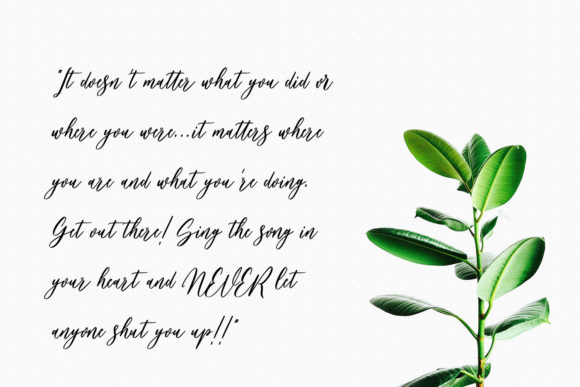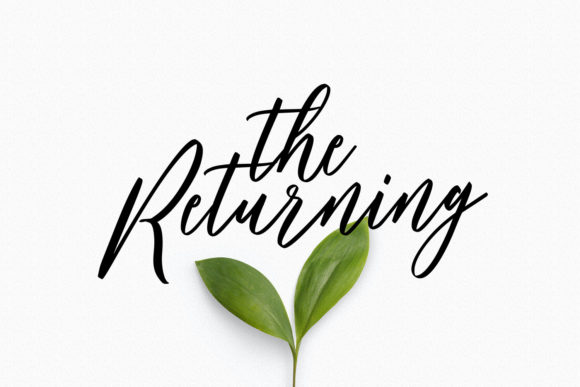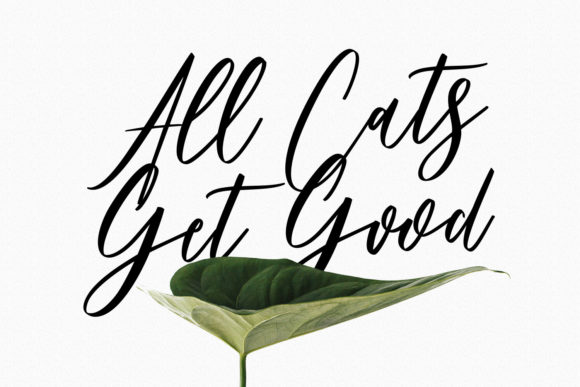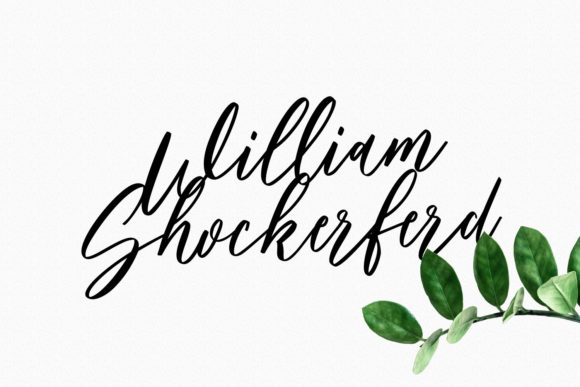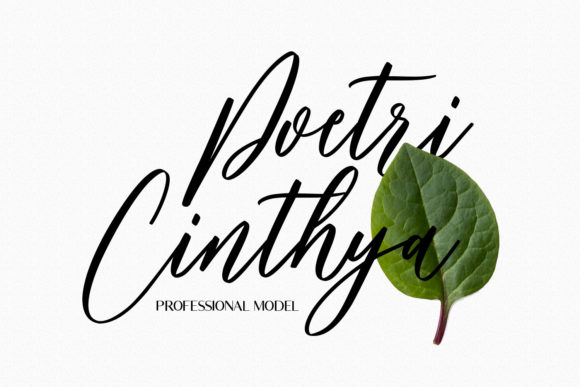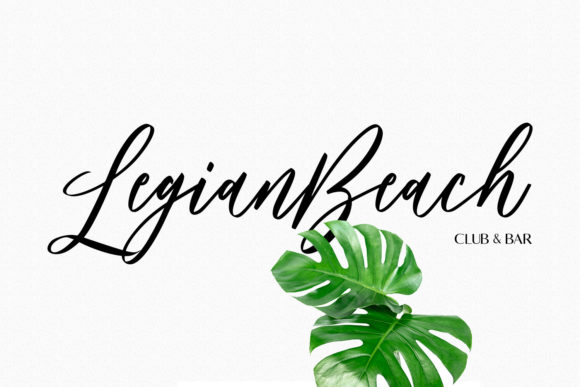
Introducing Bankports Signature Font: Elevate Your Designs with Elegance and Charm
In the world of typography, a font can make or break the aesthetic of a design. For those seeking a touch of elegance and charm, Bankports Signature Font is an exceptional choice. This beautiful handwritten font is perfect for adding a personal and sophisticated flair to various design projects. Whether you’re a designer, crafter, or DIY enthusiast, Bankports Signature Font is sure to captivate your audience with its unique and stylish appeal.
The Characteristics of Bankports Signature Font
Bankports Signature Font boasts a distinctive, hand-crafted look that feels both charming and elegant. Its fluid strokes and carefully designed letterforms create a sense of movement and personality, making it an ideal choice for designs that require a human touch. The font’s classic and timeless feel ensures that it will remain relevant and stylish for years to come.
One of the standout features of Bankports Signature Font is its versatility. It looks stunning on a wide range of design projects, including:
- Wedding Invitations: Add a touch of romance and sophistication to your wedding stationery with Bankports Signature Font.
- Thank You Cards: Express your gratitude in style with this beautiful font.
- Quotes: Make your inspirational quotes stand out with the elegant and cursive feel of Bankports Signature Font.
- Greeting Cards: Whether it’s a birthday, anniversary, or holiday card, this font is sure to impress.
- Logos: Create a lasting impression with a custom logo that incorporates Bankports Signature Font.
- Business Cards: Elevate your professional image with a stylish and memorable business card design.
Why Designers and Crafters Love Bankports Signature Font
Designers and crafters alike appreciate the unique qualities of Bankports Signature Font. Here are a few reasons why:
- Ease of Use: Bankports Signature Font is easy to read and works well in both digital and print formats.
- Customization: The font’s flexibility allows for endless creative possibilities, making it perfect for custom designs.
- Timeless Appeal: Unlike trendy fonts that quickly go out of style, Bankports Signature Font has a classic look that endures.
Tips for Using Bankports Signature Font
To make the most of Bankports Signature Font, consider the following tips:
- Pair with Complementary Fonts: Combine Bankports Signature Font with a simple sans-serif font for a striking contrast.
- Adjust Letter Spacing: Fine-tune the letter spacing to ensure optimal readability and aesthetic appeal.
- Experiment with Colors: Try different colors and textures to find the perfect match for your design.
Bankports Signature Font is a versatile and elegant addition to any design project. Its charming and sophisticated feel makes it perfect for a wide range of applications, from wedding invitations to logos and business cards. Designers and crafters will appreciate the font’s ease of use, customization options, and timeless appeal. By incorporating Bankports Signature Font into your designs, you’ll be sure to create stunning and memorable pieces that leave a lasting impression.